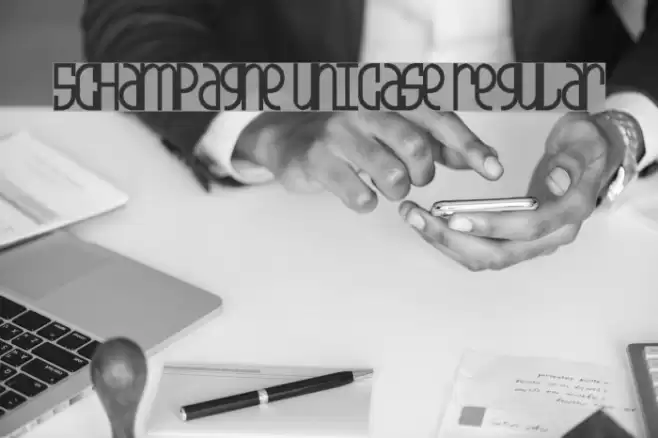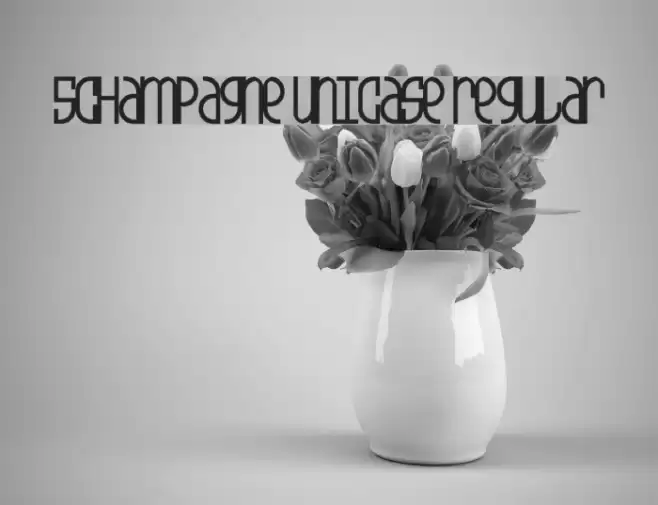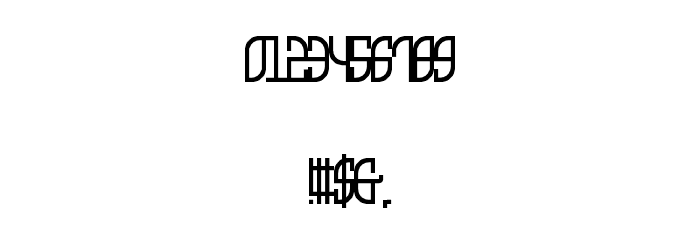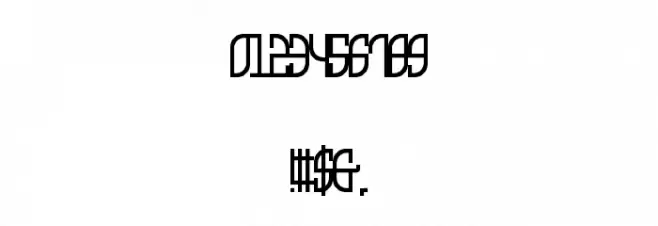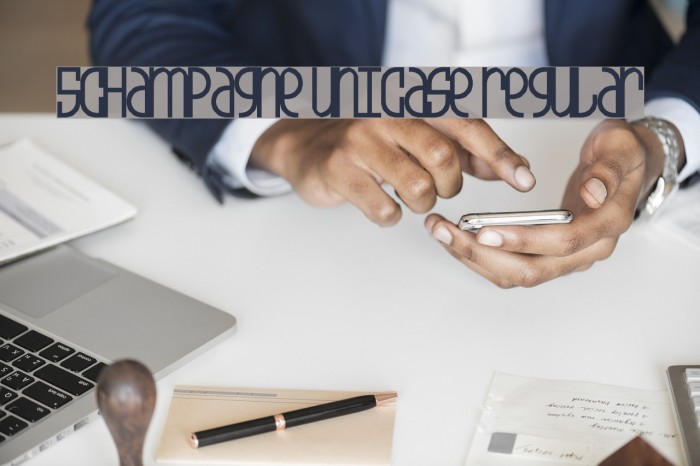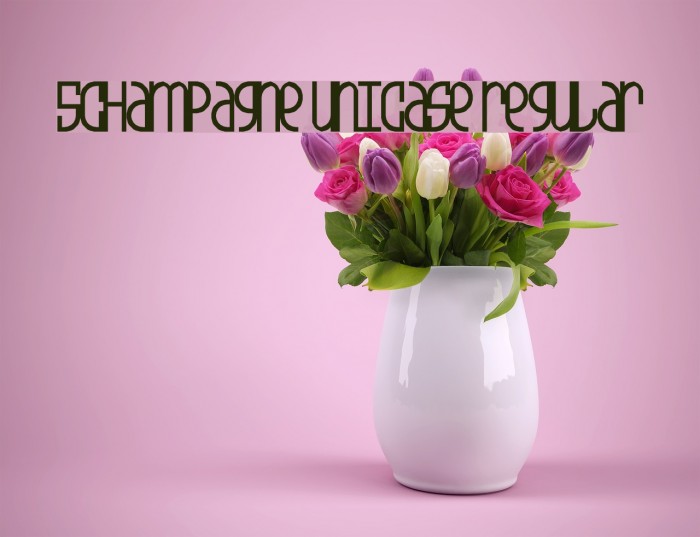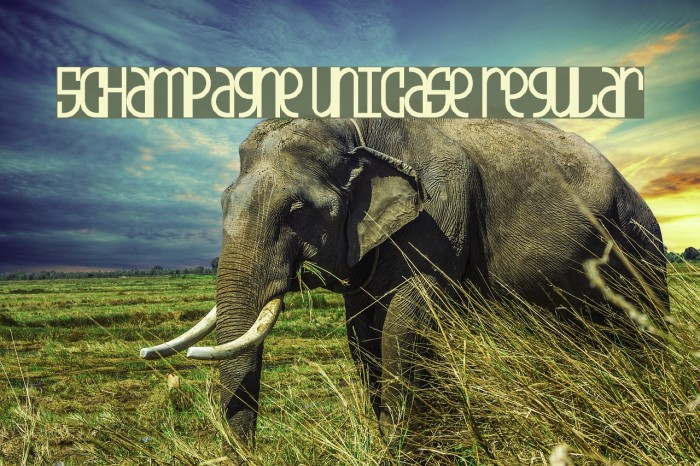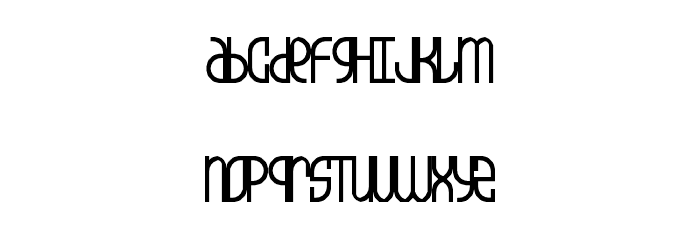
5Champagne Unicase Regular Font
5Champagne Unicase Regular Description
This font features a unique, artistic design with a blend of geometric and organic shapes. The characters are crafted with a consistent stroke width, giving it a monoline appearance. The letterforms are highly stylized, with a mix of sharp angles and smooth curves, creating a futuristic and avant-garde aesthetic. The uppercase and lowercase letters share a similar height, contributing to its unicase style. The font's distinctiveness is further enhanced by its creative use of negative space, making it visually intriguing and ideal for artistic and decorative purposes.
A futuristic, unicase font with geometric and organic elements.